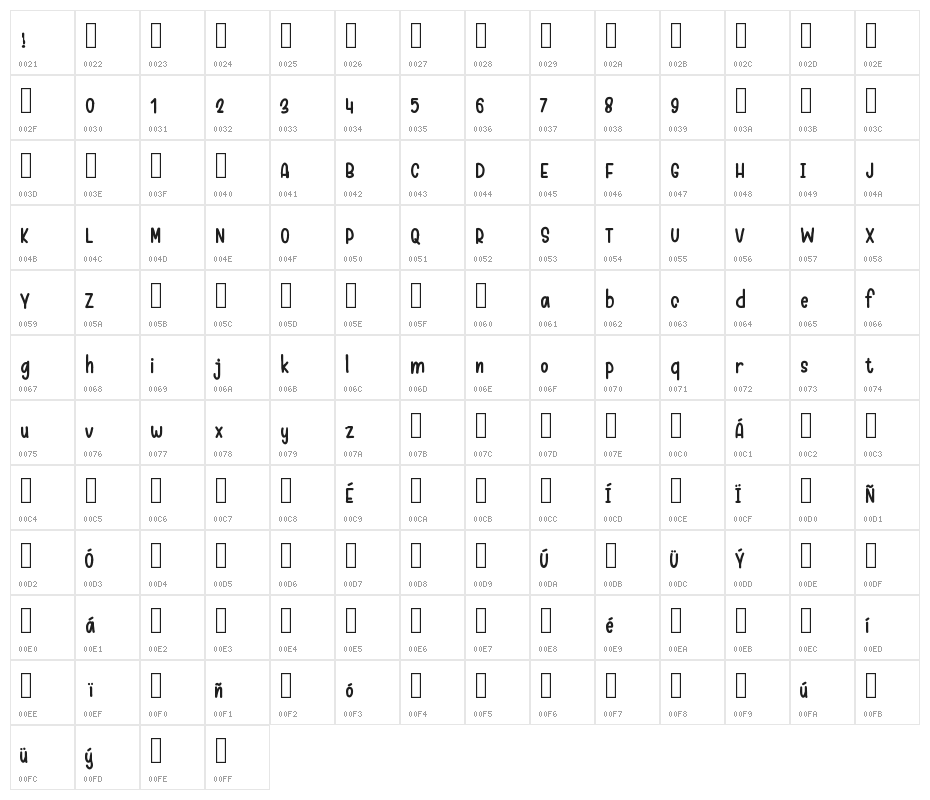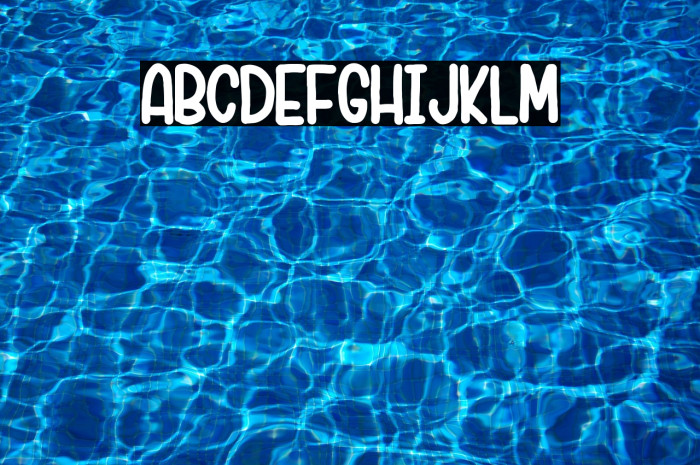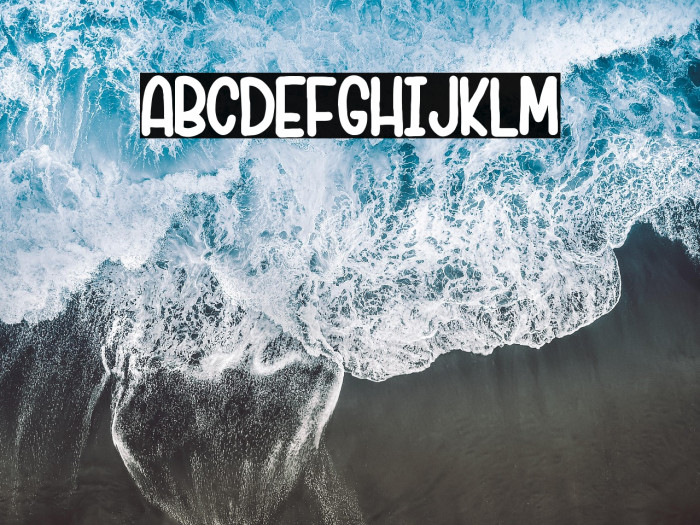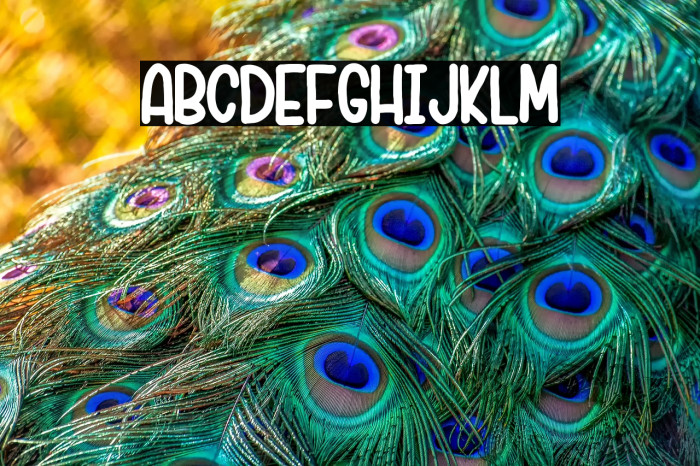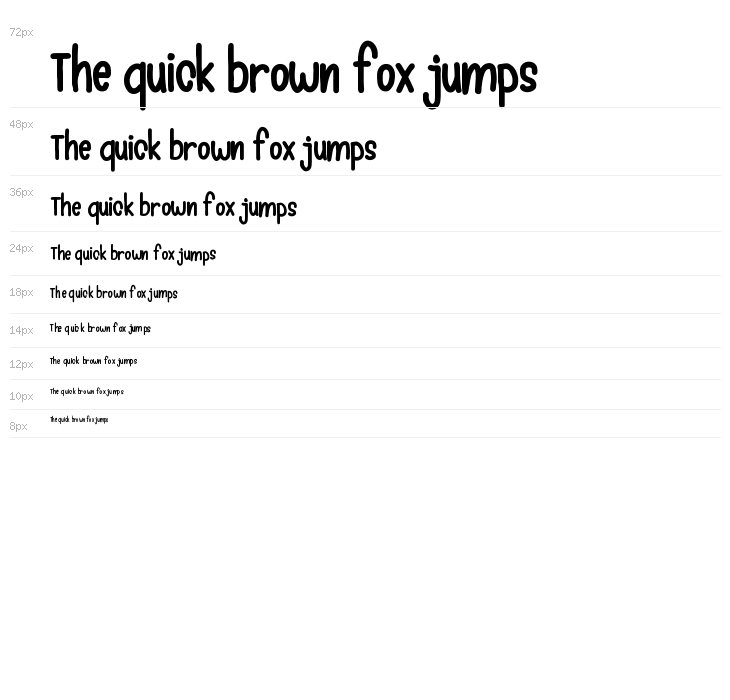
Merina Font
Merina Description
This font features a playful and rounded style, characterized by its smooth curves and friendly appearance. The letters are bold and slightly condensed, giving them a compact yet approachable look. The uppercase and lowercase letters maintain a consistent style, with rounded terminals and a uniform stroke width that adds to its casual charm. The numerals are clear and easy to read, matching the overall aesthetic. Special characters are included, maintaining the same playful and rounded design. This font is ideal for projects that require a fun and informal touch.
| Width | Condensed |
| Overall Style | Casual |
| Use Case | Headlines, Logos, Informal Text |
| Proposed Projects | Ideal for children's books, playful branding, casual invitations, and social media graphics. |